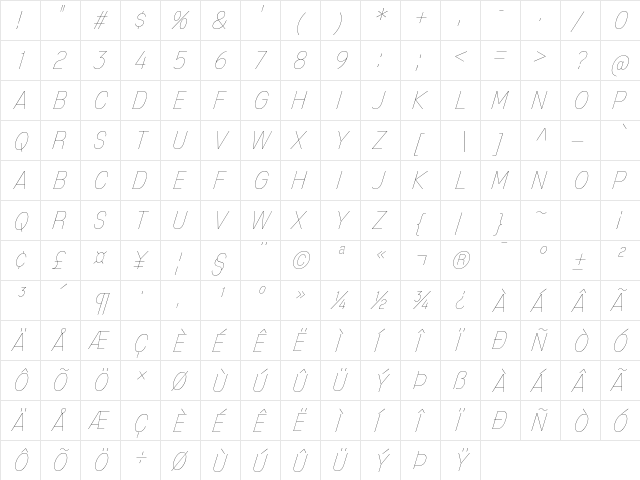
Mixolydian Titling UltraLight Italic Font Preview
Design Context for Mixolydian Titling Typeface
Mixolydian Titling takes a measured approach to typography — its balanced proportions and neutral character make it a reliable workhorse for both digital and print work. The dynamic lean of this cut emphasises speed and emphasis in any layout. Its slender proportions lend an understated elegance to any composition.
Pro Tip: Use Mixolydian Titling for emphasis, pull quotes, and subheadings where its slanted energy can add rhythm to the layout.